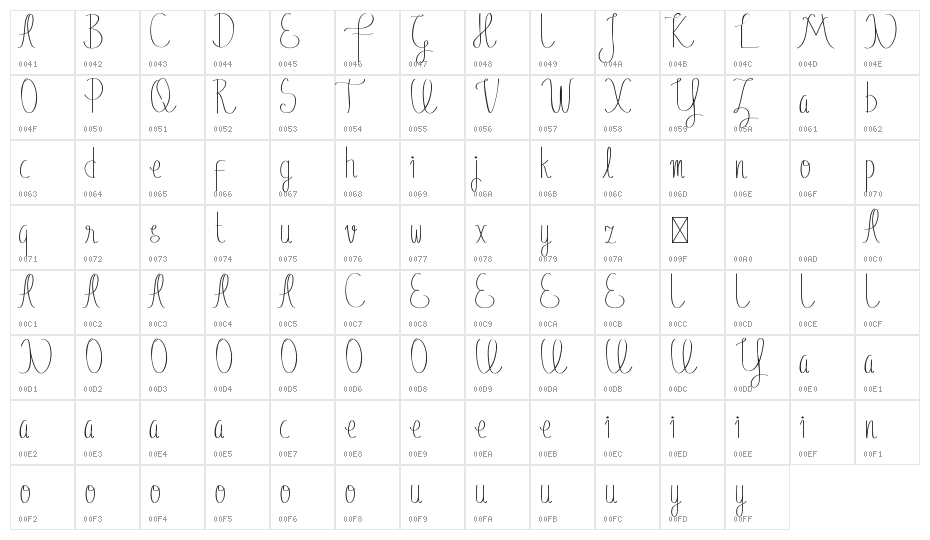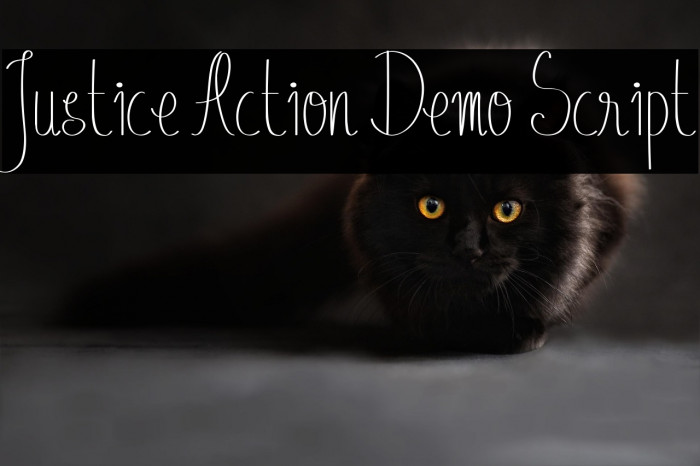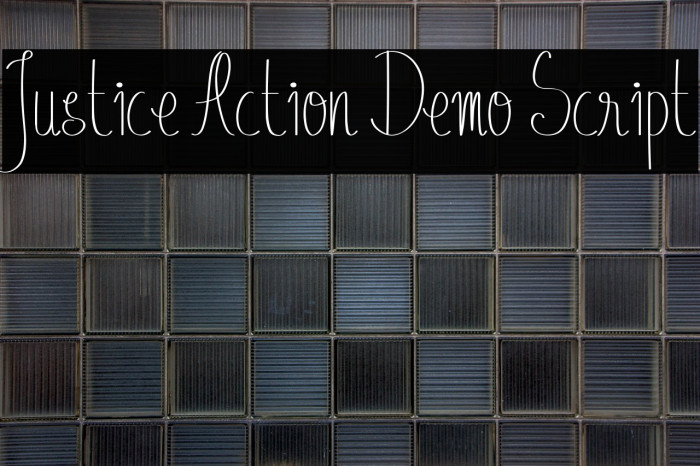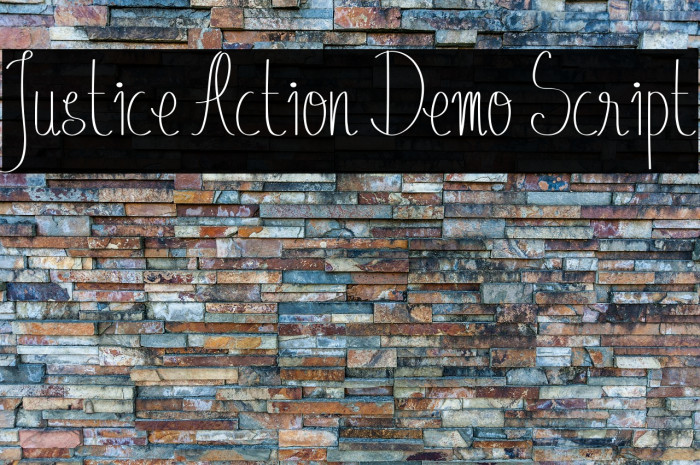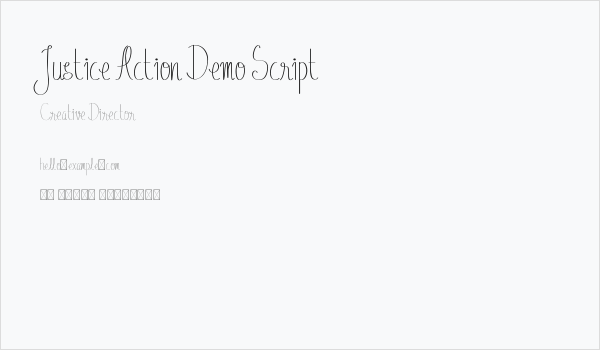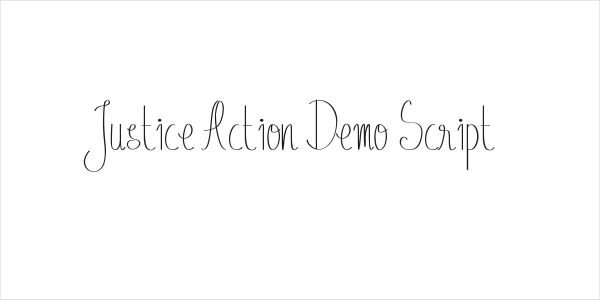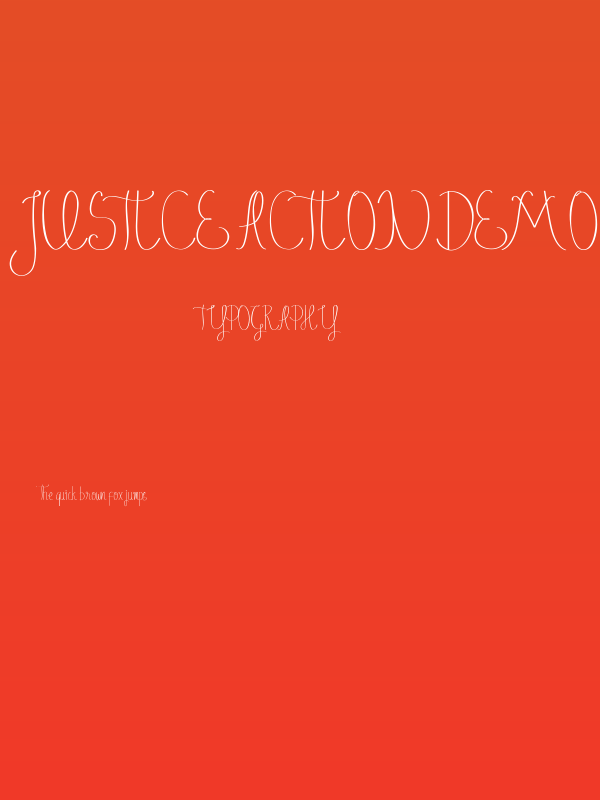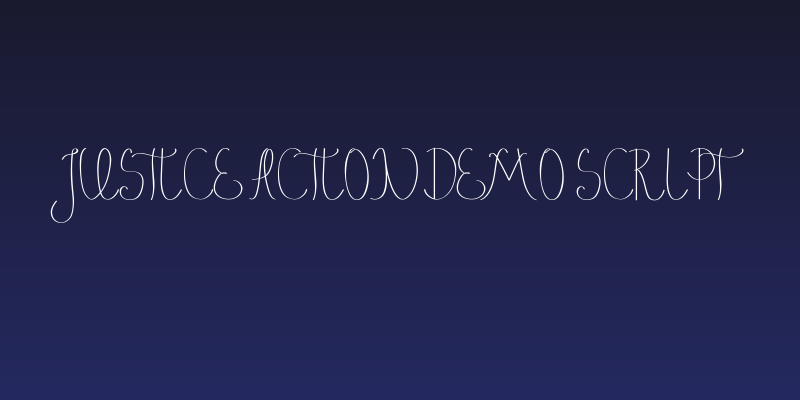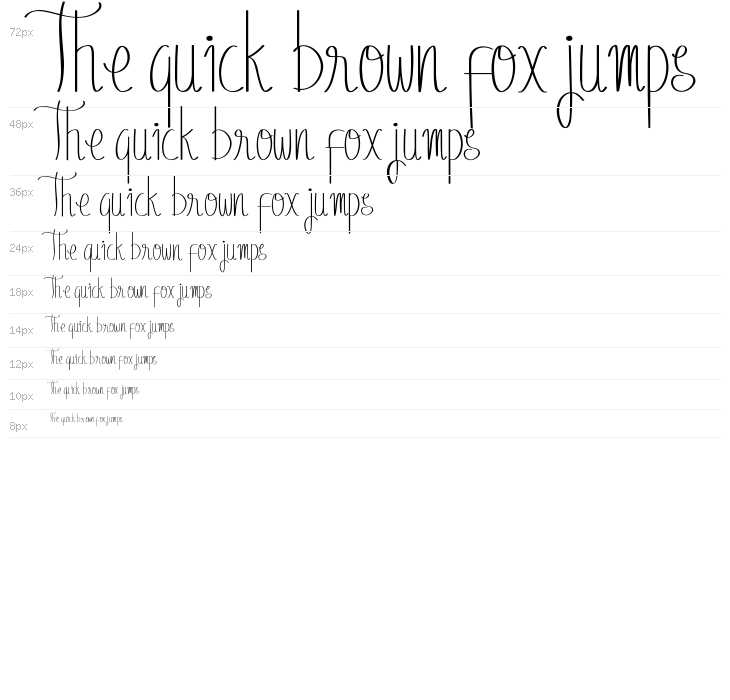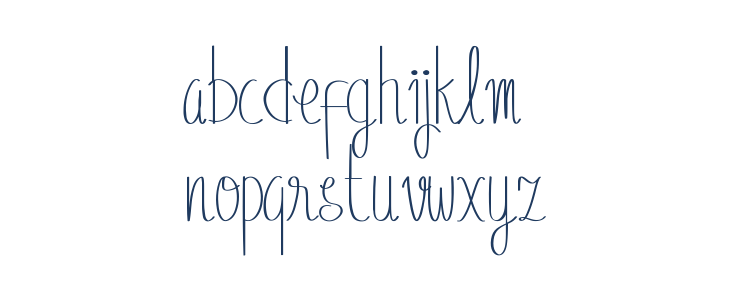
Justice Action Demo Script Font
Justice Action Demo Script Description
This font features an elegant and flowing script style, characterized by its thin, delicate lines and graceful curves. The uppercase letters are particularly ornate, with extended loops and swirls that add a sense of sophistication and flair. The lowercase letters maintain a consistent style, with a slightly more restrained design that complements the uppercase characters. The numbers and special characters follow the same aesthetic, ensuring a cohesive look across all text elements. This font is ideal for projects that require a touch of elegance and refinement, such as wedding invitations, formal event programs, or high-end branding materials.